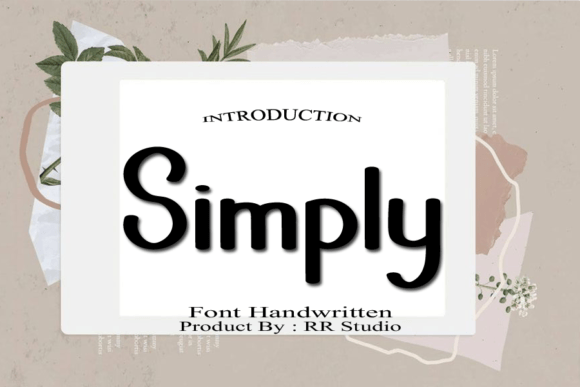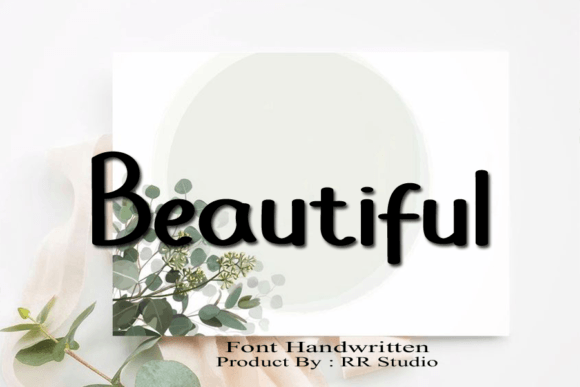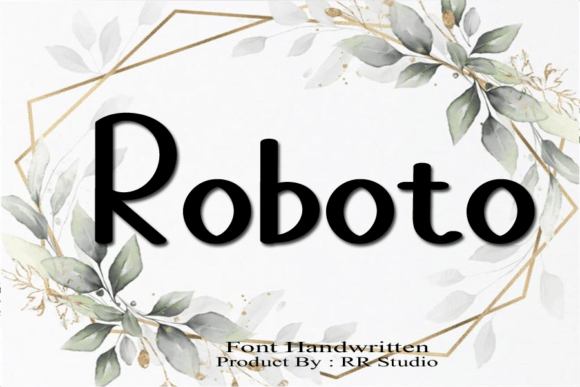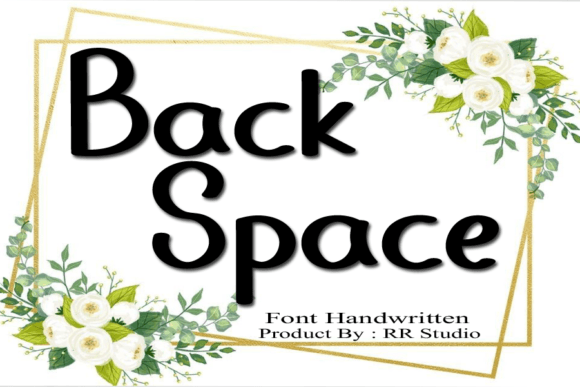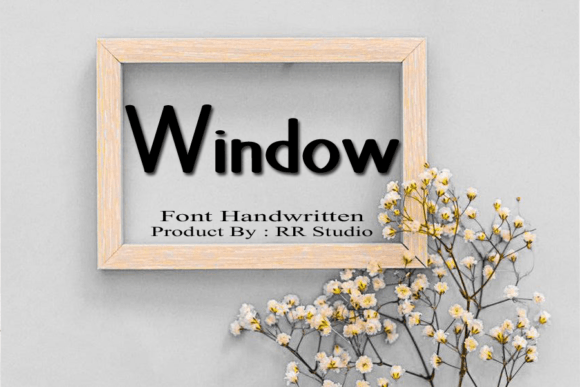
Simply Font
About Simply Font
Simply is a sweet and cursive handwritten font that exudes a gentle and charming quality. This delightful font is versatile and can enhance a variety of design ideas, bringing a joyful and romantic touch to each of your projects.
The sweet and cursive nature of Simply makes it a perfect fit for diverse applications. Whether you’re working on logotypes, headlines, corporate identity, brand identity, apparel industry designs, posters, music, movie, game-related graphics, magazine layouts, book covers, comics, cartoons, YouTube thumbnails, Instagram posts, websites, or any other creative design projects, Simply adds a touch of charm and creativity.
Imagine Simply gracing your designs, whether it’s on a romantic book cover, a whimsical logo, or an engaging Instagram post. The font becomes a key element that not only adds a sweet and cursive aesthetic but also infuses a sense of joy and romance into your creations.
In summary, Simply is more than just a font; it’s a design asset that brings sweetness and charm to your projects. Embrace its gentle and cursive style confidently, and let Simply be the typeface that adds a delightful touch to your various creative endeavors.